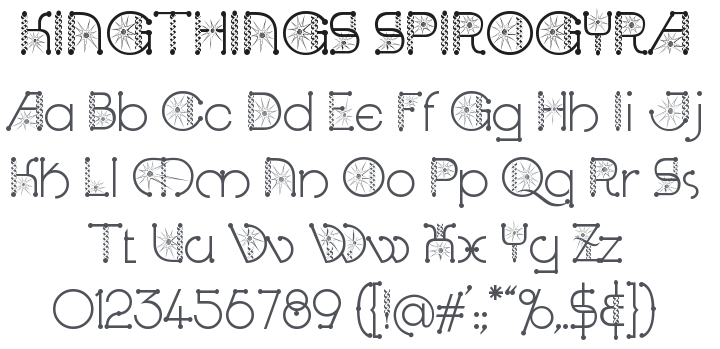
Kingthings Spirogyra Font
About Kingthings Spirogyra
I doodle you know...I remember with wonder, Biology lessons at 'big' school, with Microscopes, and a filamentous pond weed called Spirogyra. There were spirals in it! and a nucleus like a star! and then 35 years later (or so), I doodled Kingthings Spirogyra idly watching TV.